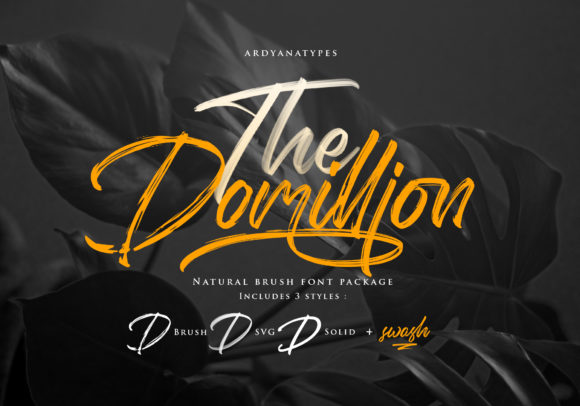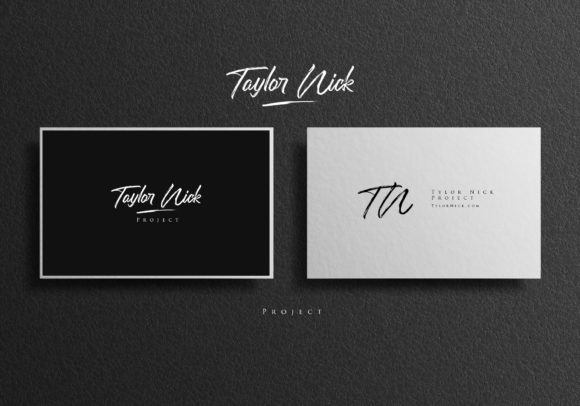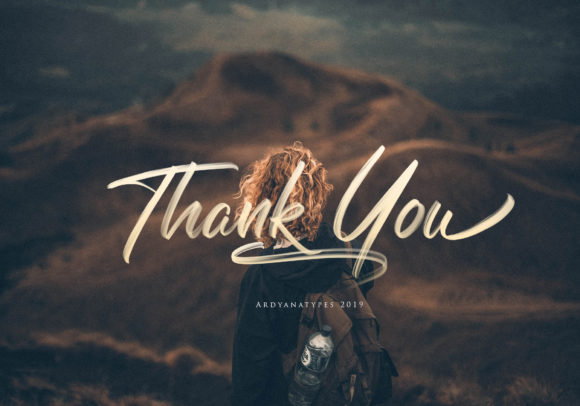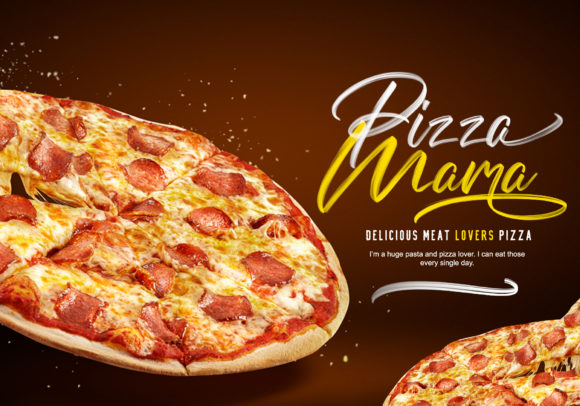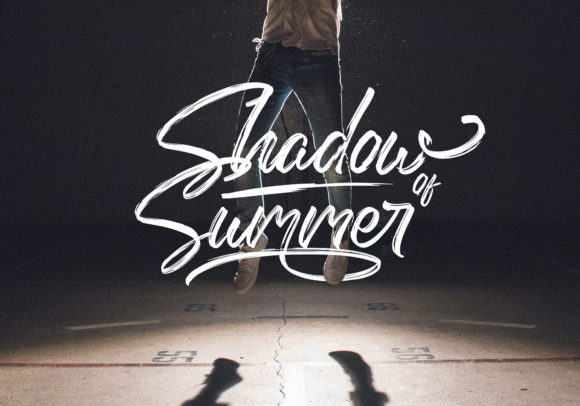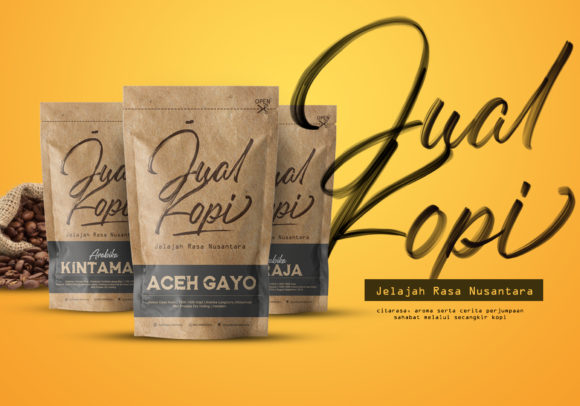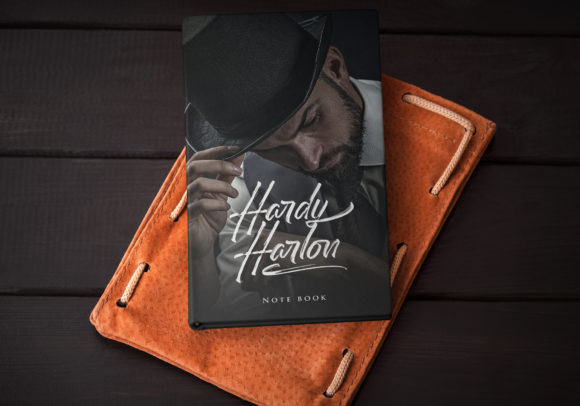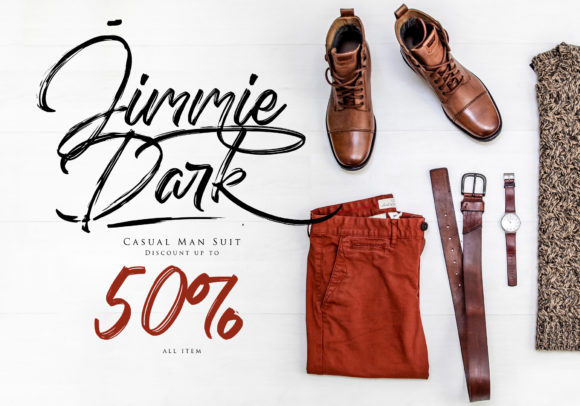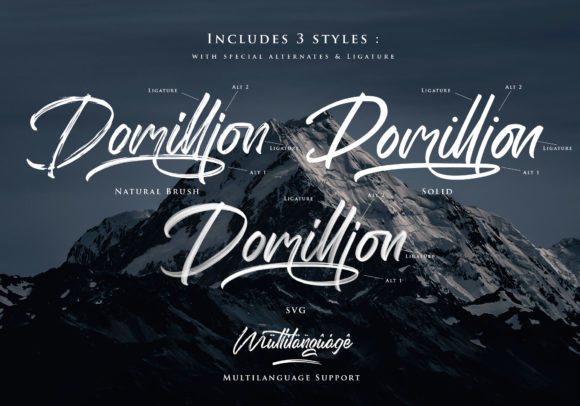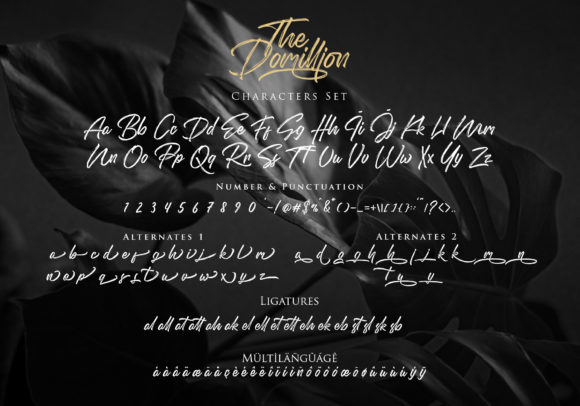
HomeScript FontsDomillion Font Script Fonts Domillion Font FacebookXPinterestWhatsApp Domillion Font Poster 2 Domillion Font Poster 3 Domillion Font Poster 4 Domillion Font Poster 5 Domillion Font Poster 6 Domillion Font Poster 7 Domillion Font Poster 8 Domillion Font Poster 9 Domillion Font Poster 10 Domillion Font Poster 11 About Domillion Font Domillion is a fresh, urban and stylish handwritten font with a bold feel. Get inspired by its authentic charm! DOWNLOAD ON CREATIVE FABRICAThis font is sold and delivered by Creative Fabrica. Font Canyon may earn a commission if you buy through this link. People also explored Rosalia Monogram Font Rock Bottom Font Morison Religion Font Hello Marvelia Font Barracuda Font Buterfly Font Huge Giant Font Fast Rush Font 414 0 TagsDomillion Font Previous articleRamayana FontNext articleRothena Font LEAVE A REPLY Cancel reply Comment: Please enter your comment! Name:* Please enter your name here Email:* You have entered an incorrect email address! Please enter your email address here Website: Save my name, email, and website in this browser for the next time I comment. Personal Use Free Laneway Personal Use Free Read more about this font Kredit Personal Use Free Read more about this font Kellana Personal Use Free Read more about this font Histeria Bites Personal Use Free Read more about this font BLOG Top 10 Handwritten Fonts That Elevate Your Designs Top 10 Handwritten Fonts That Will Elevate Your Designs Handwritten fonts bring a warm, personal touch to every creative project. Whether you're designing logos, invitations,... Modern Sans-Serif Fonts That Brands Love in 2025 Top 7 Google Fonts Alternatives for Faster and Privacy-Friendly Web Design (2025) To increase your work productivity, choose the most readable fonts.